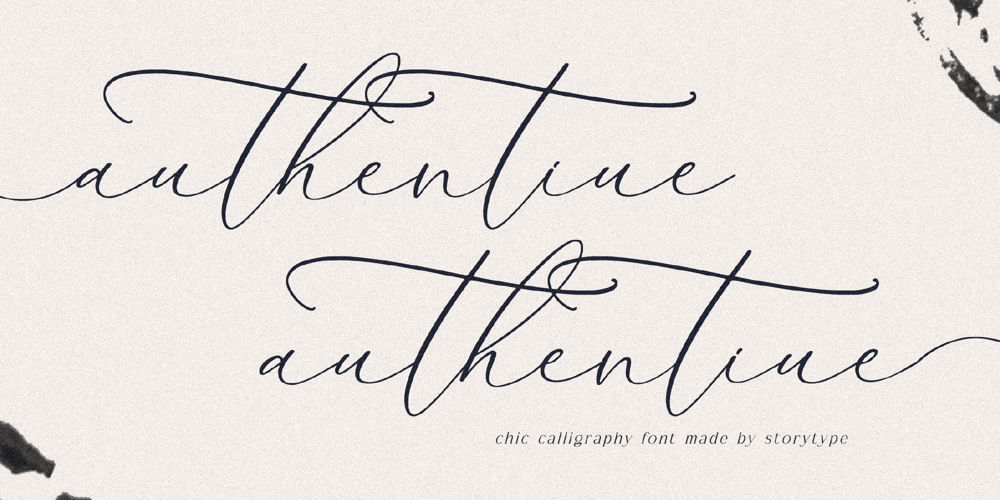
Authentiue Font Family was designed by Heru Utama Putra and published by Letterena Studios. Authentiue contains 2 styles and family package options. Authentiue is a stylish and chic calligraphy script font. No matter the topic, this font will be an incredible asset to your fonts’ library, as it has the potential to elevate any creation.